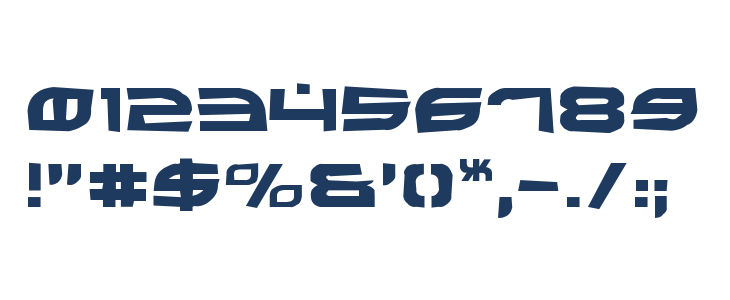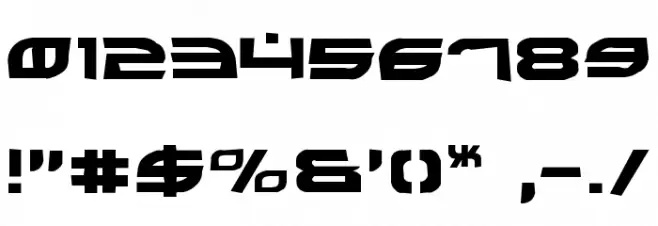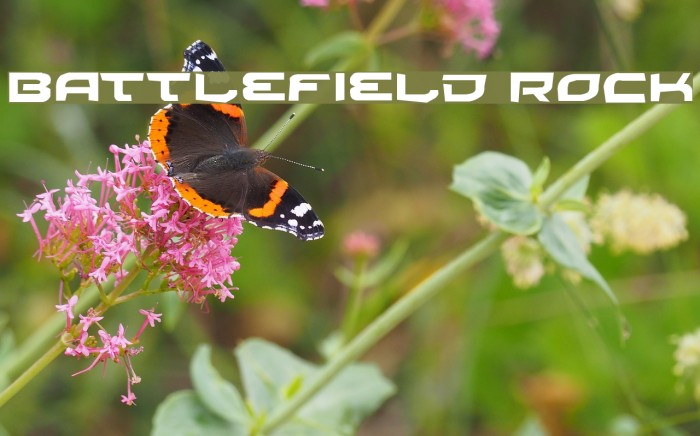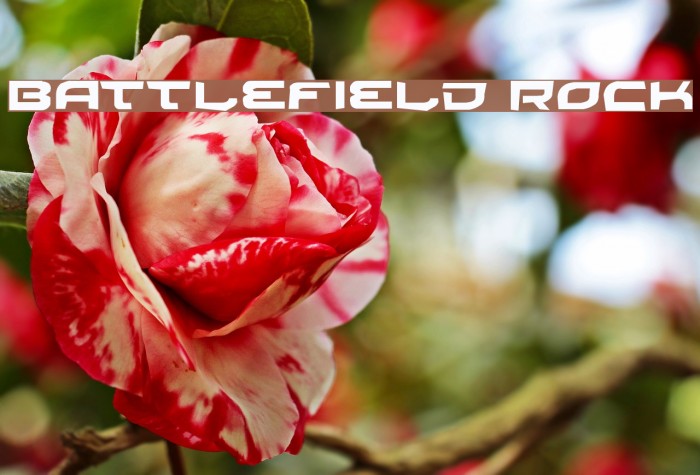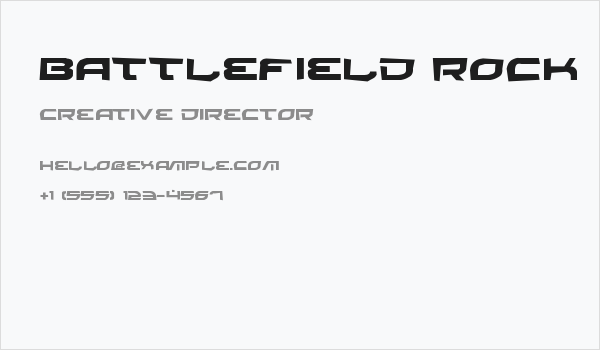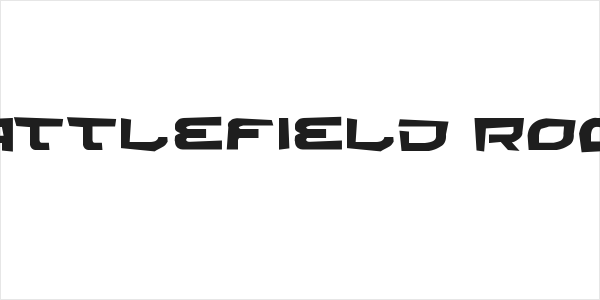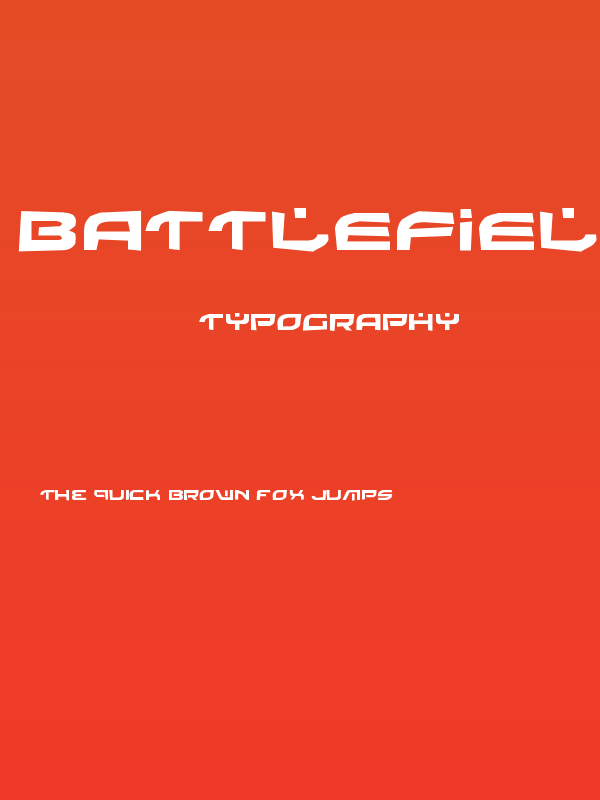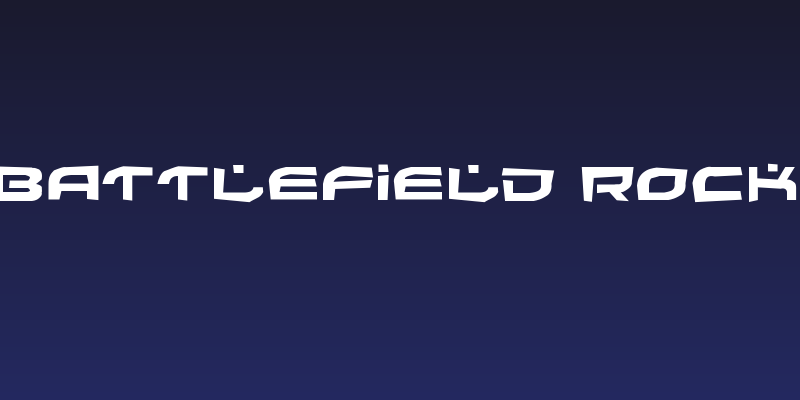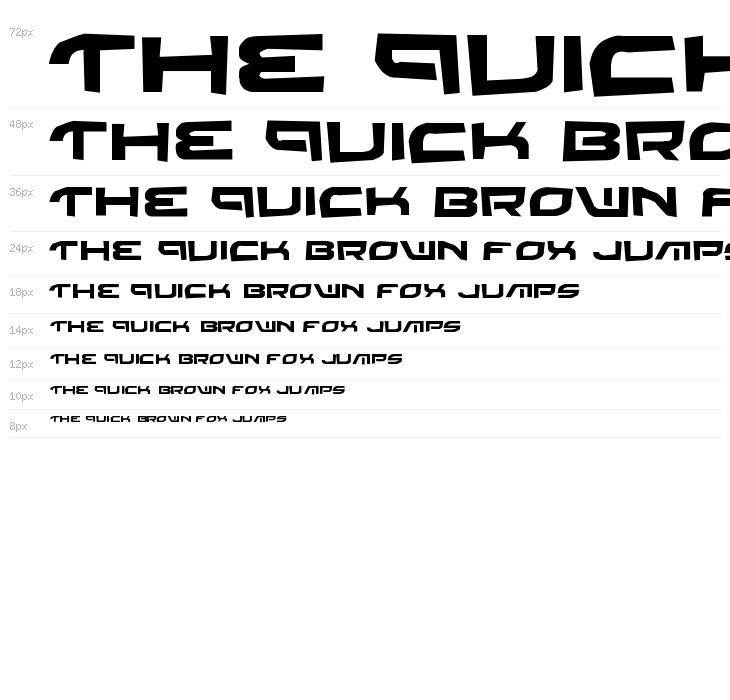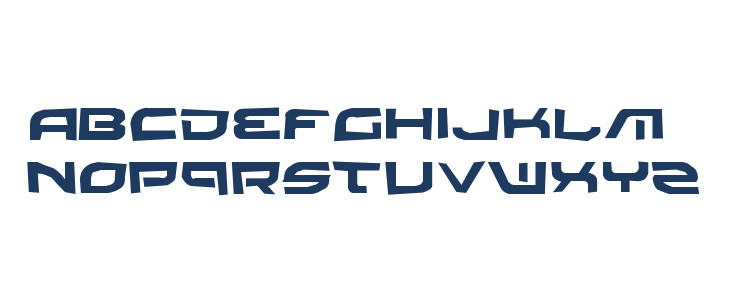
Battlefield Rock Font
Battlefield Rock Description
This font features a bold, futuristic design with angular and geometric shapes. The uppercase letters are distinct with sharp edges and a blocky appearance, giving a sense of strength and modernity. The lowercase letters maintain the same angular style, ensuring consistency across the typeface. Numbers are equally bold and geometric, making them stand out prominently. Special characters are designed to match the overall aesthetic, with unique shapes that complement the letters and numbers. The font's style is reminiscent of sci-fi and tech themes, making it ideal for projects that require a modern and edgy look.
| Proposed Projects | Ideal for video game titles, tech branding, sci-fi movie posters, and futuristic event flyers. |